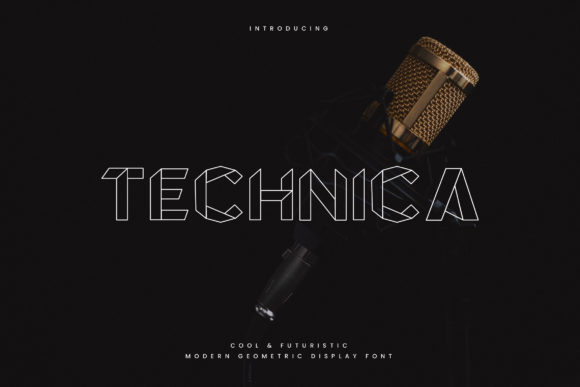
In a world where music reverberates through every fiber of our being, where melodies paint vivid pictures in our minds, there exists a font that captures the very essence of this auditory magic. Meet Technica Font, a display font so bold and authentic, it transcends the boundaries of ordinary typefaces. Inspired by the eclectic brilliance of abstract shapes, Technica dances across your screens with a captivating rhythm all its own.
Unleash the boundless potential of your creative ideas with Technica Font. Watch in awe as your words transform into visual symphonies, carrying the weight of your messages with unwavering strength. Whether you're a musician crafting a captivating flyer for your upcoming gig, a designer seeking to make a lasting impression, or a creator yearning to breathe life into your digital masterpieces, Technica Font is the perfect instrument to harmonize your vision with the world.
Dive into a world where sharp angles and sweeping curves intertwine, creating a visual tapestry that captivates the eye and ignites the imagination. Technica Font isn't just a collection of letters; it's a gateway to a realm where imagination reigns supreme. With every keystroke, you'll feel the pulse of creativity coursing through your veins, propelling your ideas to new heights.
Immerse yourself in the limitless possibilities that Technica Font offers. Let its bold strokes carry your words with an unwavering presence, commanding attention and leaving an indelible mark on the minds of your audience. Elevate your designs to the realm of the extraordinary and witness how Technica Font transforms your creations into masterpieces that resonate with power and grace.